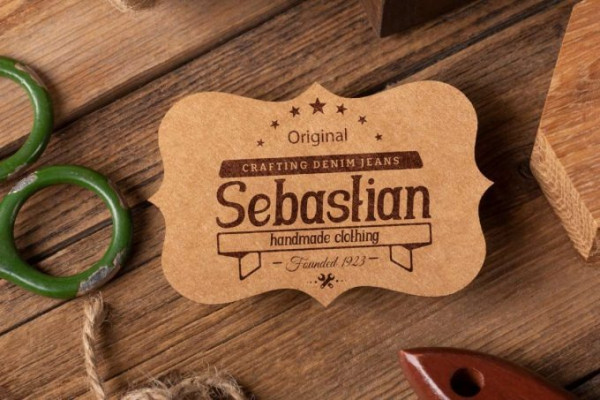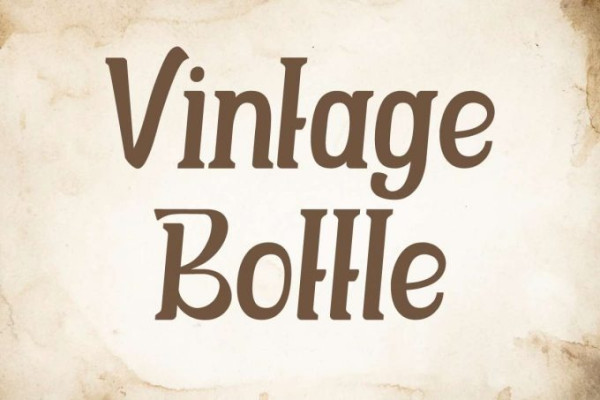
Vintage Bottle Font
Vintage Bottle Font is a classic stylish serif display font made by VinType Studio. This font has a vintage style that can be used for many occasions and will not take away the beauty it creates. It will be suitable for many industries, such as café, clothing brand, event organizer, fashion, furniture, festival, handicrafts, homeware, interior design, printing, publishing, restaurant, etc.
Vintage Bottle Font includes full set of Uppercase and Lowercase Basic Characters, Numerals and Punctuation. This font is inspired by the vintage style combined with the modern feel of today. It would be good for many ideas, such as body text, brand logo, brochure, business card, header, invitation, label, menu flyer, poster, product packaging, quotes, screen printing, signage, website, and more!